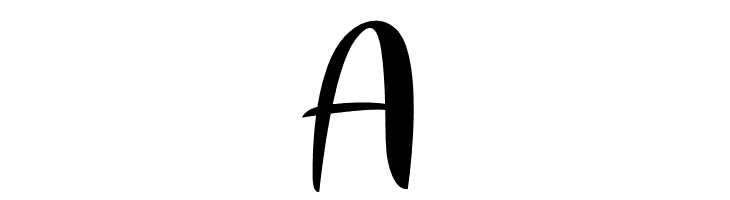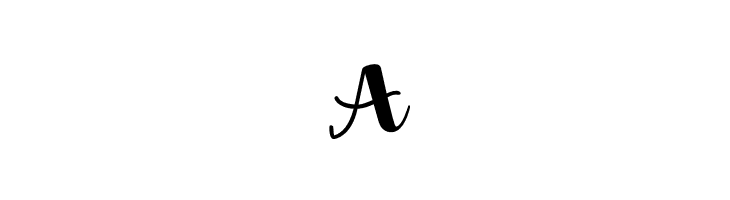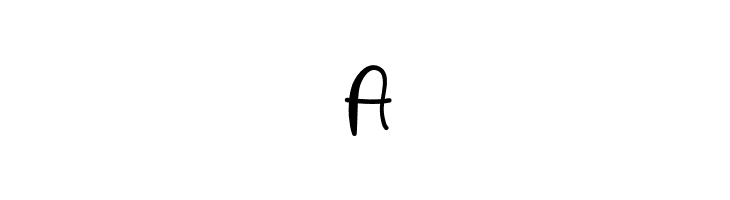
• Baked Almond
A bold, playful handwritten font with smooth, rounded strokes.
• Baked Snails Hollow Flat Regular
A modern, hollow, geometric font with rounded edges and consistent line thickness.
A playful, hollow font with rounded, tubular characters and bold outlines.
• BakedTrains
A bold, graffiti-inspired font with sharp lines and dynamic flourishes.
• Bakery
A bold, decorative bakery-themed icon set.
• Bakery
A dynamic and expressive handwritten font with fluid strokes.
• Bakesaurus
A playful, bold outline font with a three-dimensional look.
• Baketvalley Old Face
• Baking Pastry
A playful, rounded font with a whimsical and creative style.
• Baking Pastry
A playful handwritten font with rounded, dynamic strokes.
• Bakira
A bold and expressive script font with dynamic contrast and fluid strokes.
• Bakiya
A bold, expressive script font with a modern and playful style.
• Bakpia
A playful, handwritten font with bold, rounded letters and a casual style.
• Bakpia Sabang
A playful, casual handwritten font with smooth, rounded edges.
• Bakquila
A graceful and elegant script font with flowing, cursive lines and sophisticated curves.
• Bakul Nasi
A playful, bold handwritten font with rounded, smooth letterforms.
• BAKUSHO
A bold, brush-style font with dynamic, expressive strokes.
• BAKUSHO
A bold, brushstroke font with an energetic and artistic style.
• BalaCynwydNF
A bold, geometric font with tribal-inspired embellishments.
• Balada
A bold, handwritten font with dynamic strokes and a lively style.
• Baladewa FREE
A fluid, cursive font with a natural handwritten style.
• BaladewaFREE